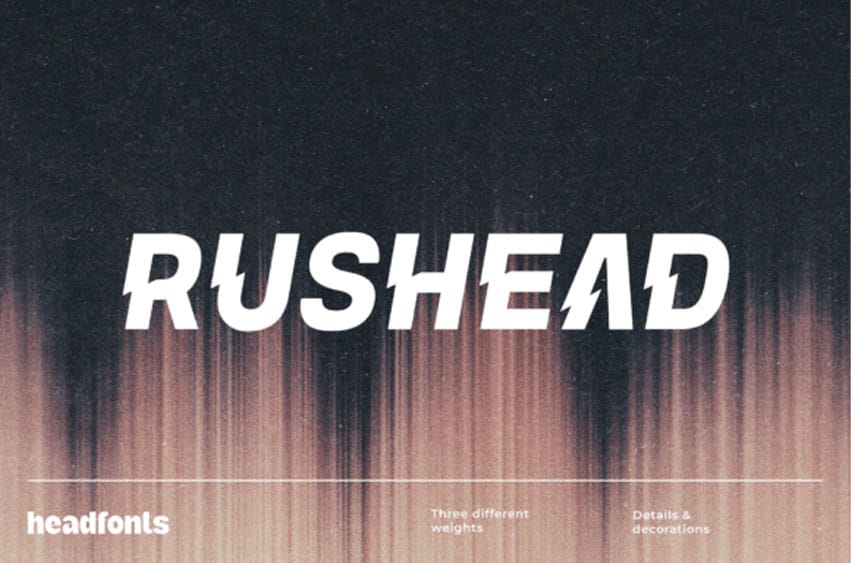
Rushead Font is a premium, geometric display font designed for maximum visual impact.
Its forward-leaning stance and rising diagonal cut through each character convey motion, energy, and precision, making it ideal for racing visuals, futuristic branding, and high-performance design.